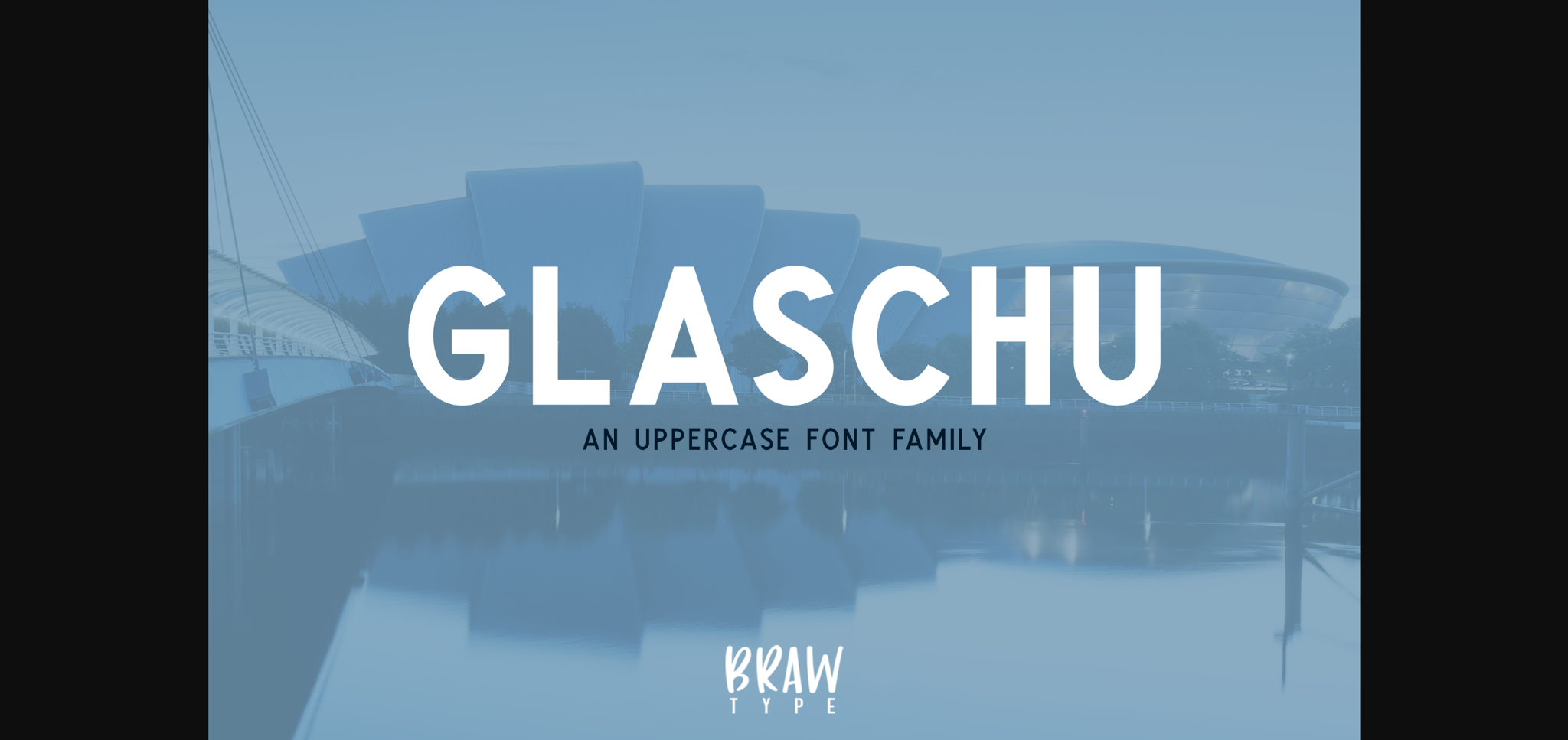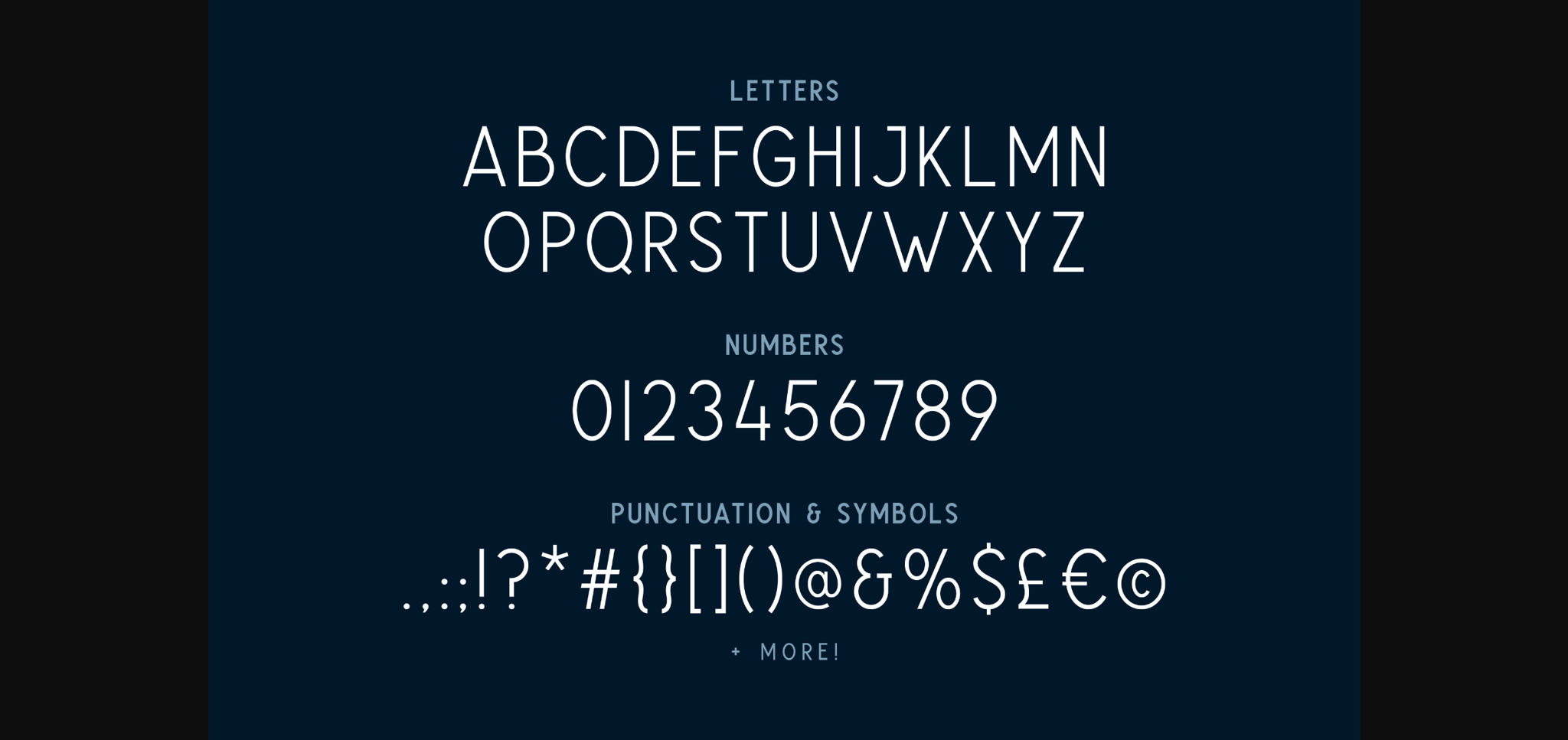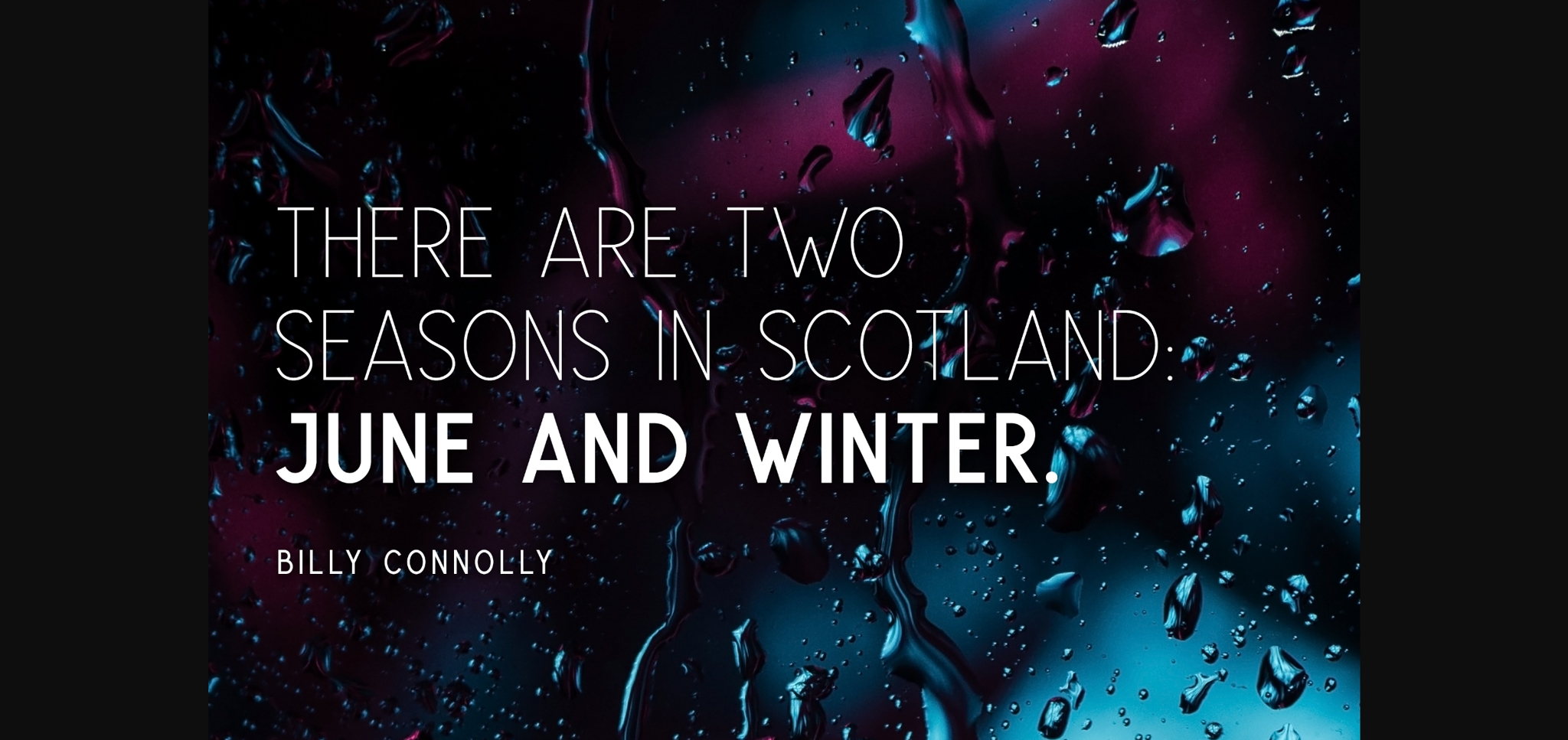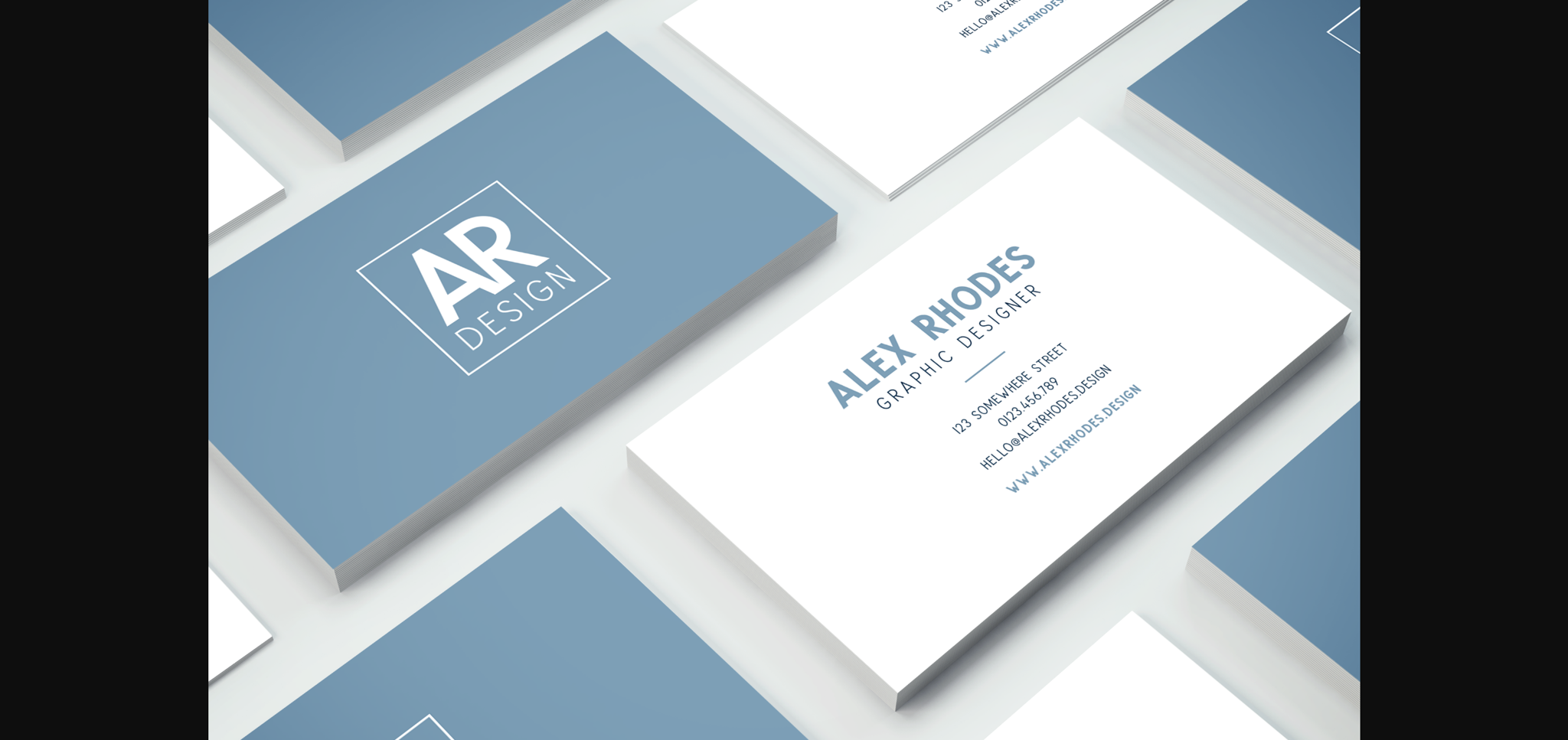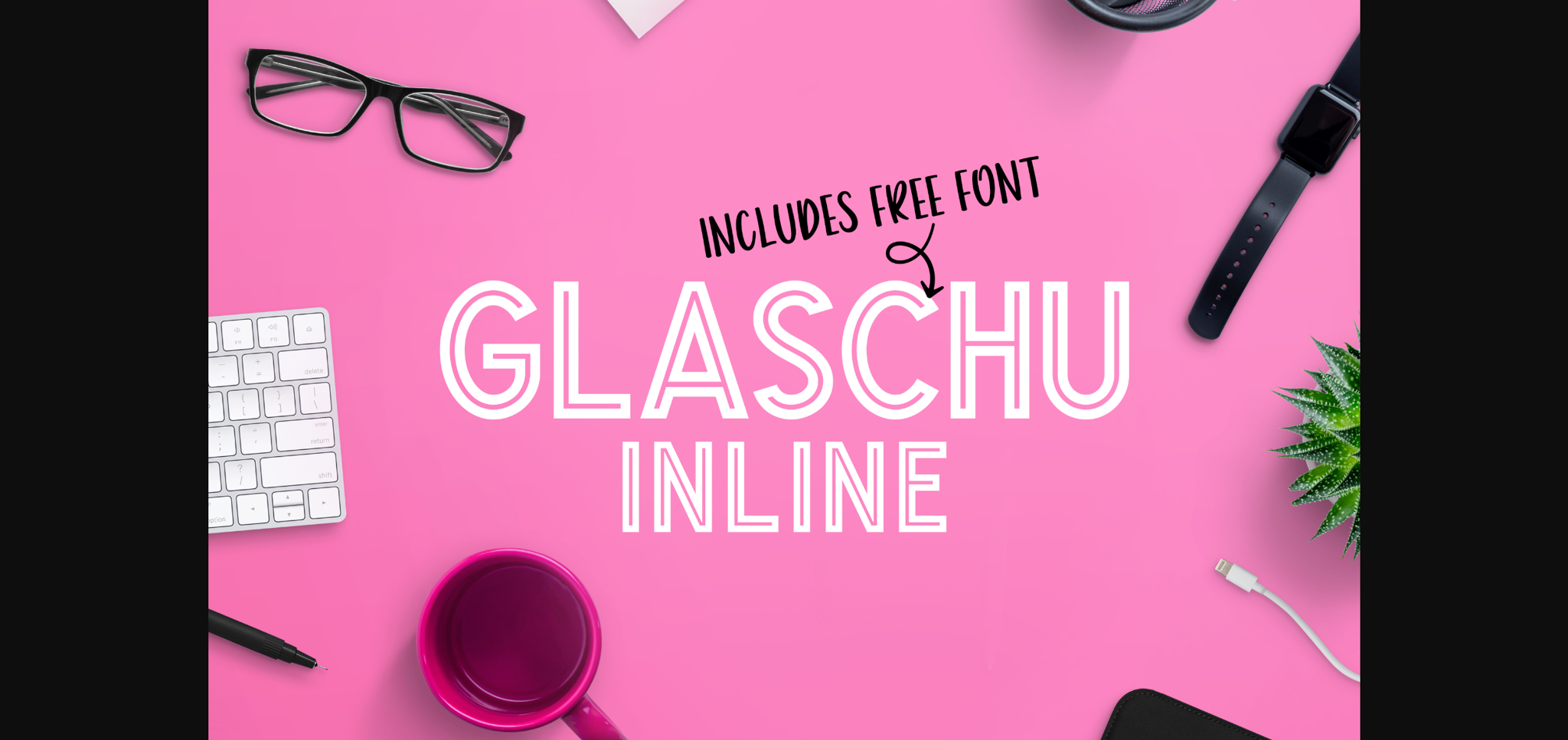
About Glaschu Font
Glaschu (pronounced Glas-a-hoo) is a modern, uppercase typeface which comes in 5 font weights with 2 additional outline styles. Itβs clean, crisp edges and bold appearance makes it a perfect choice for headings, branding, signage, advertising, magazine layouts and more.